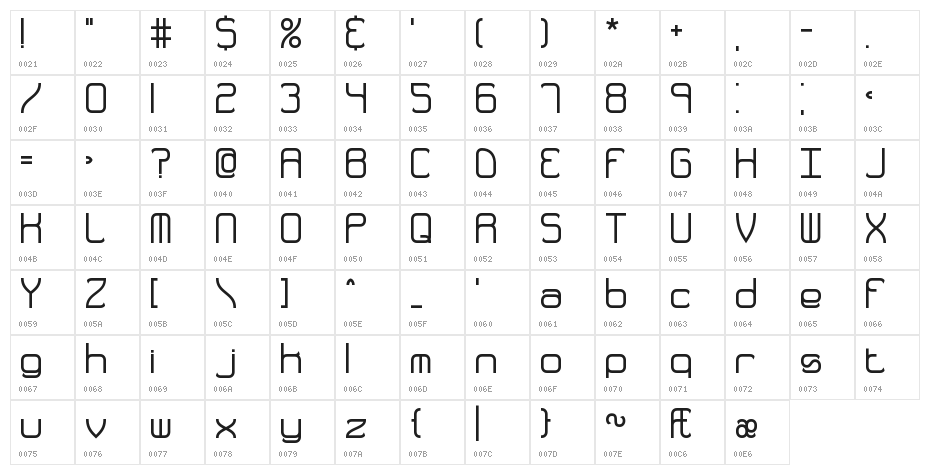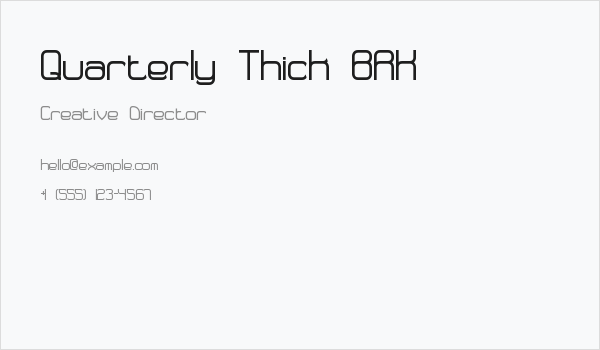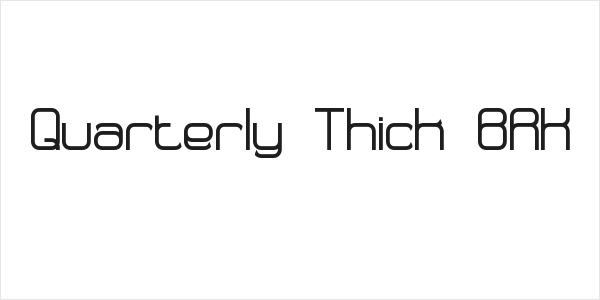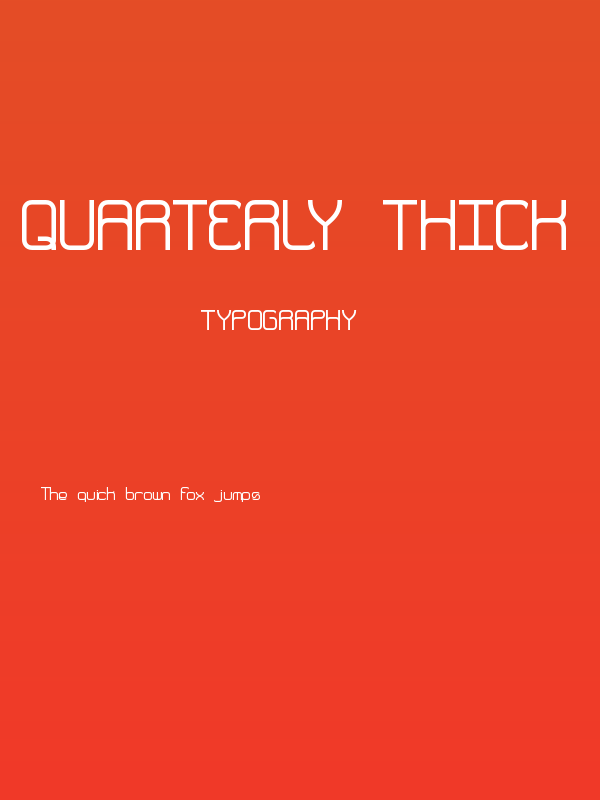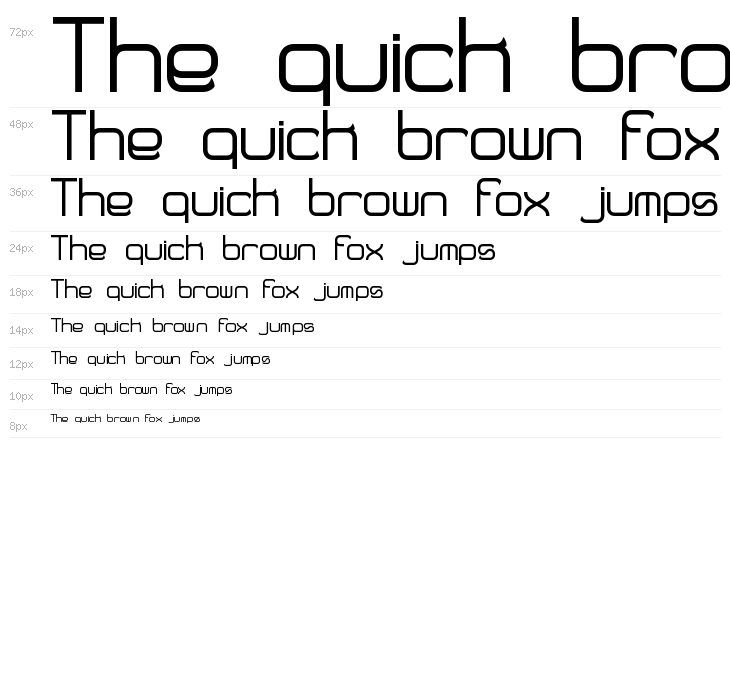
Quarterly Thick BRK Font
Quarterly Thick BRK Description
This font features a modern and geometric design with clean, rounded edges and a uniform stroke width. The characters are constructed with a focus on simplicity and clarity, making them highly legible. The uppercase and lowercase letters maintain a consistent style, with a slight variation in height and width that adds visual interest. The numerals and special characters are designed to complement the alphabetic characters, ensuring a cohesive look across all text. This font's minimalistic and contemporary aesthetic makes it suitable for a variety of design applications.
| Use Case | Headlines, Logos, Digital Interfaces |
| Proposed Projects | Ideal for tech branding, modern web design, digital interfaces, and minimalist posters. |